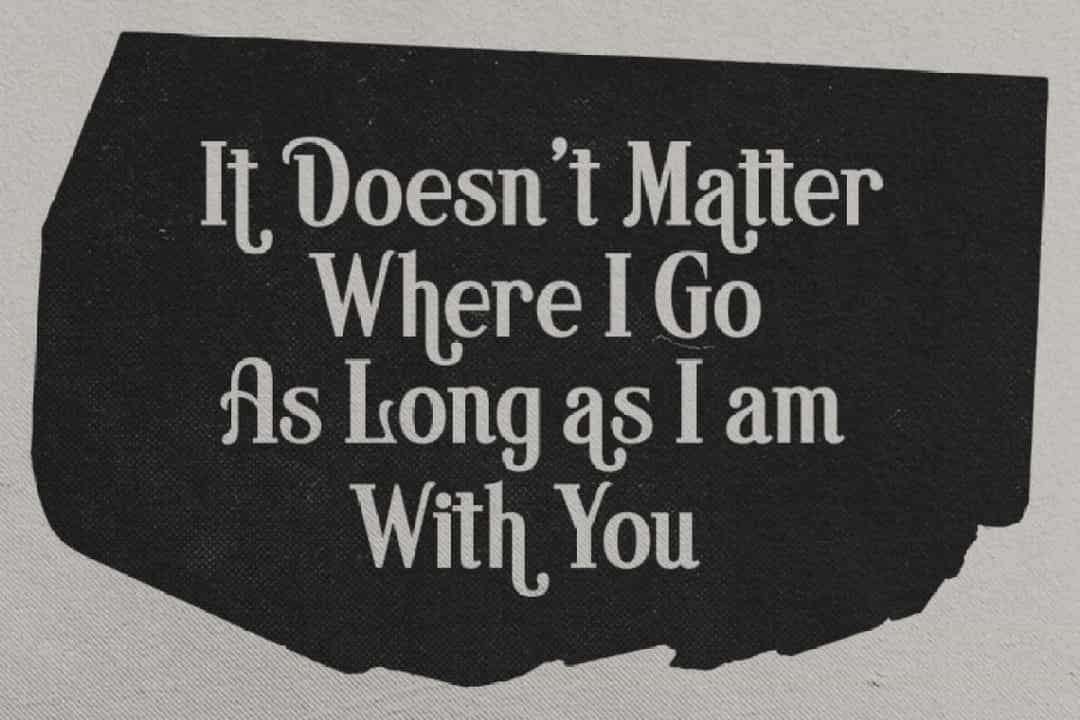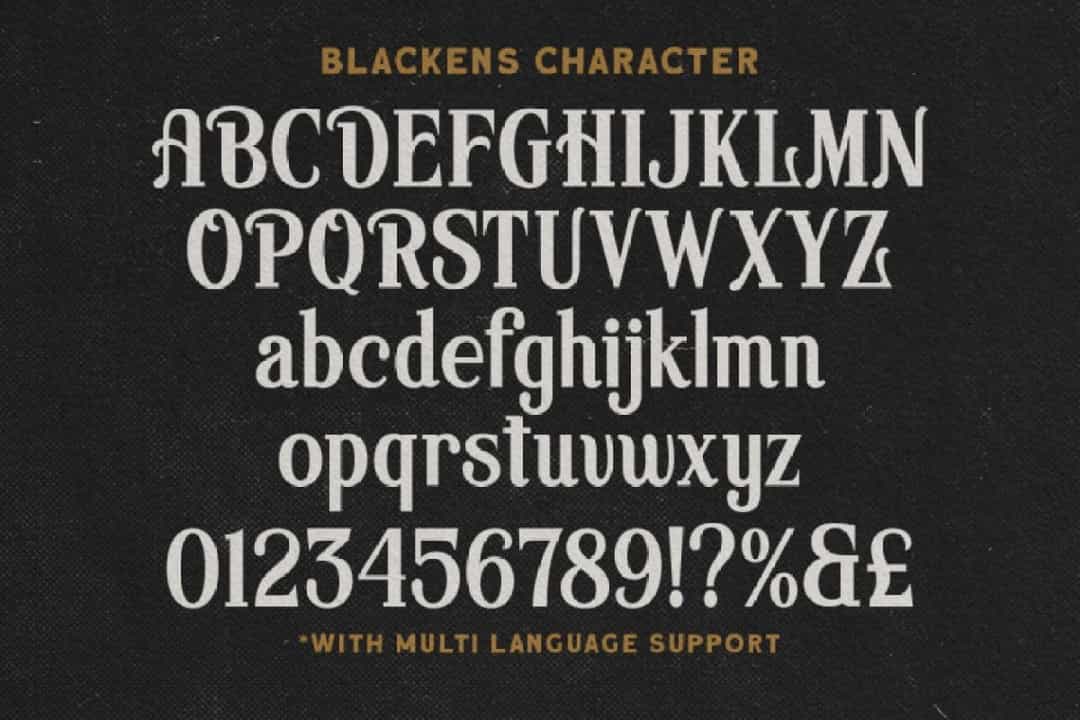
Blackens is a display serif font designed with elegance in mind, featuring an uppercase style to set it apart from other fonts and make its font more noticeable and distinguished. This font was developed for use as part of logo designs or formal invitations and labels, magazines or books for any kind of advertising campaign, magazine logos, books, wedding cards, invitations, labels etc.